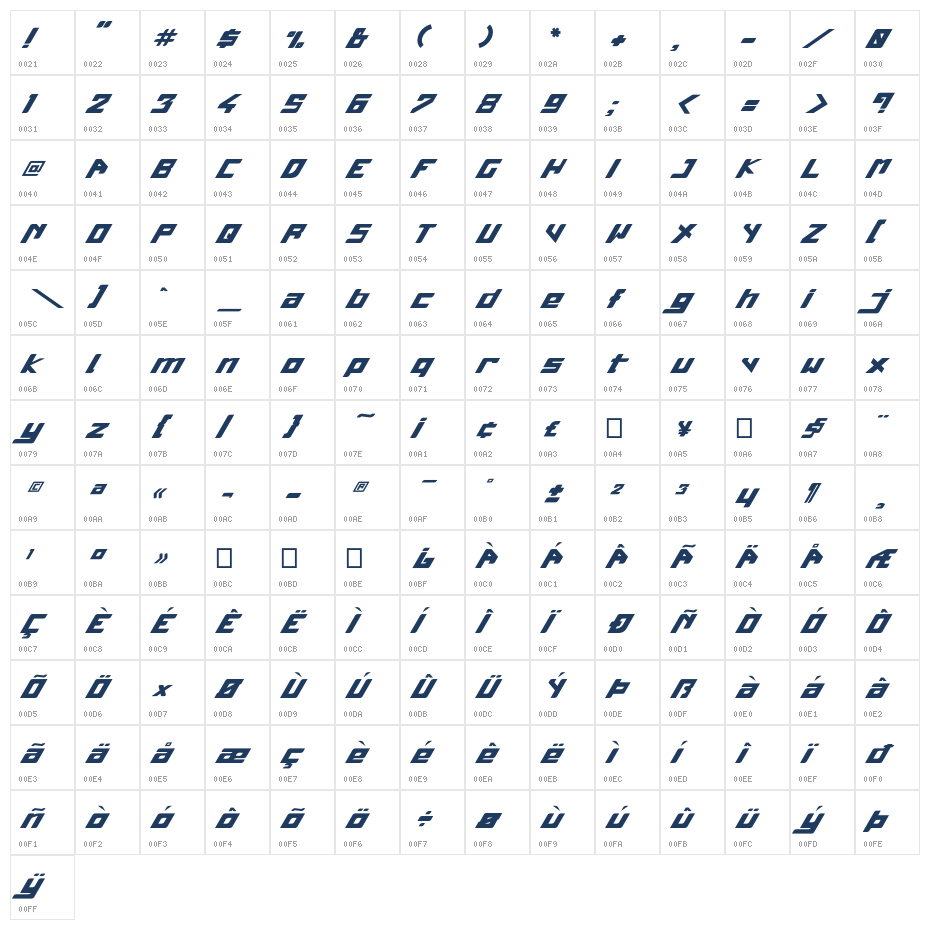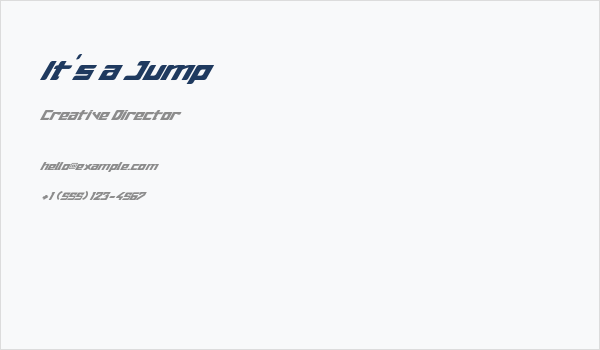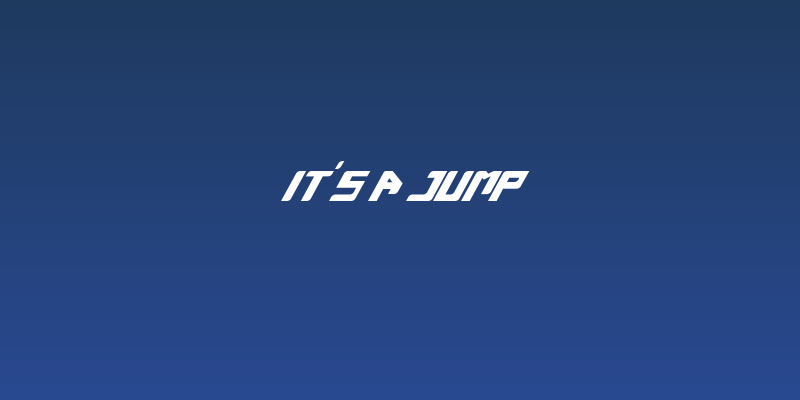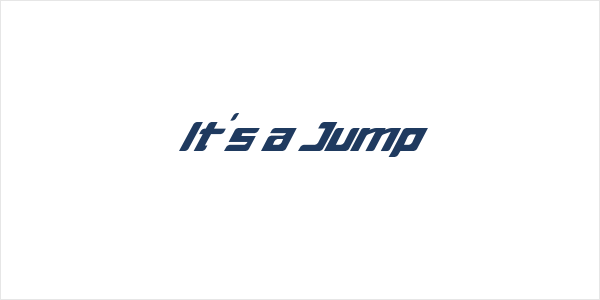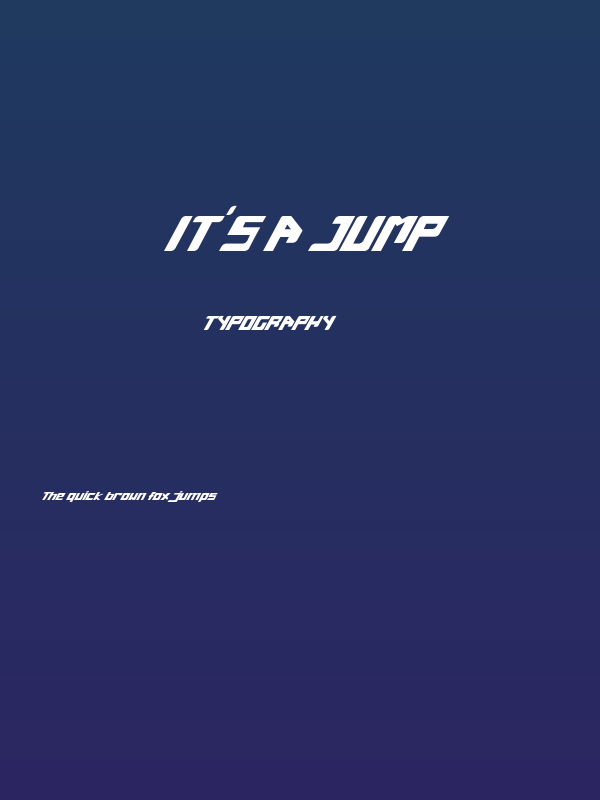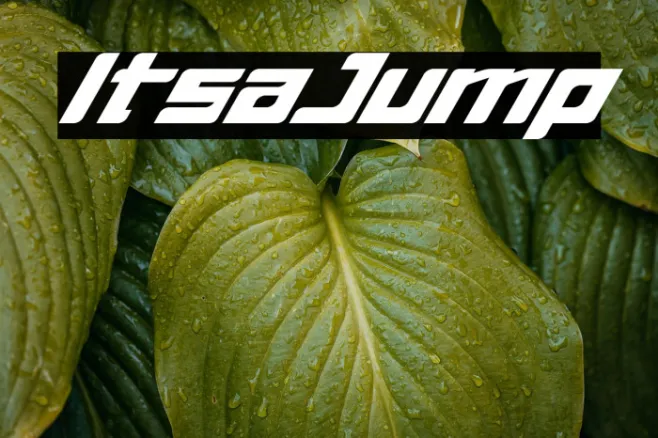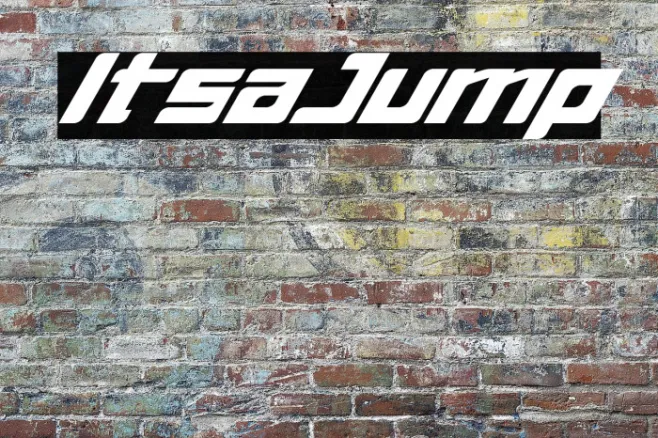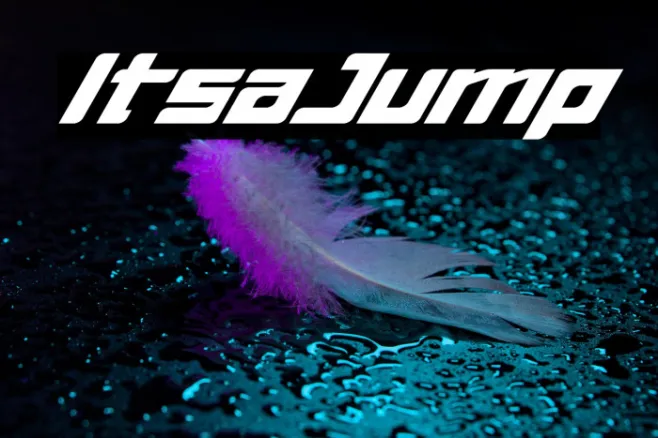
It's a Jump Font
It's a Jump Description
Bold, italic, geometric sans-serif font with a futuristic style, featuring sharp angles and a dynamic appearance.
| Overall Style | Futuristic, Modern, Geometric |